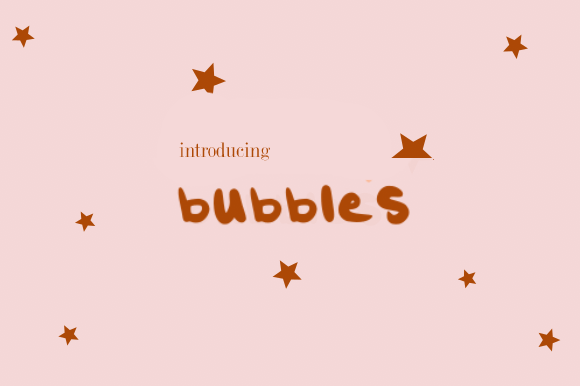
The Ultimate Guide to Bubbles Font: Adding a Playful Touch to Your Designs
Have you ever been in the middle of a design project, and suddenly, you’re stuck on finding the perfect font? I recall a recent experience where I was working on a fun, crafty project for a client who wanted a playful and groovy vibe. After scouring through numerous font libraries, I stumbled upon Bubbles Font, and it instantly became the star of the show! In this article, we’ll dive into the world of Bubbles Font, exploring its features, uses, and everything in between.
A Personal Favorite: What I Love About Bubbles Font
Bubbles Font has quickly become one of my go-to display fonts, and for good reason. Here are some of the things that make it stand out:
- ✨ Cute and playful: Bubbles Font has a fun, bubbly personality that’s perfect for designs that require a lighthearted touch.
- ✅ Groovy vibe: This font has a retro feel that’s reminiscent of the 60s and 70s, making it ideal for designs that require a nostalgic touch.
- 💡 Versatile: Bubbles Font can be used for a wide range of design projects, from posters and flyers to social media graphics and crafts.
The Not-So-Perfect: A Few Quirks and Limitations
While Bubbles Font is an excellent choice for many design projects, it’s not without its limitations. Here are a few things to keep in mind:
- 🤔 Limited legibility: Due to its playful nature, Bubbles Font may not be the best choice for body text or long paragraphs.
- ⚠️ Not suitable for all languages: As with many display fonts, Bubbles Font may not support all languages or special characters.
The Story Behind Bubbles Font
Bubbles Font was created with the intention of capturing the carefree spirit of the 60s and 70s. Its designer, a creative enthusiast, aimed to create a font that would bring a playful touch to designs. With its groovy vibe and cute personality, Bubbles Font has become a favorite among designers and crafters alike.
| Font Name | Bubbles Font |
| Author | Dream Big Digital Design |
- Q: What type of designs is Bubbles Font best suited for?
- A: Bubbles Font is perfect for designs that require a playful, groovy vibe, such as posters, flyers, social media graphics, and crafts.